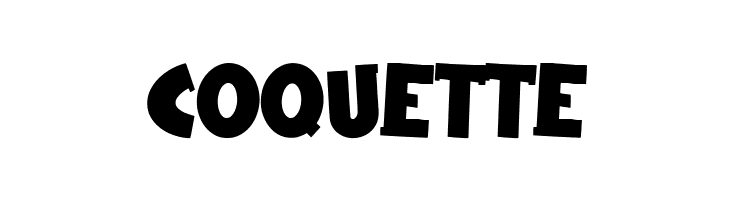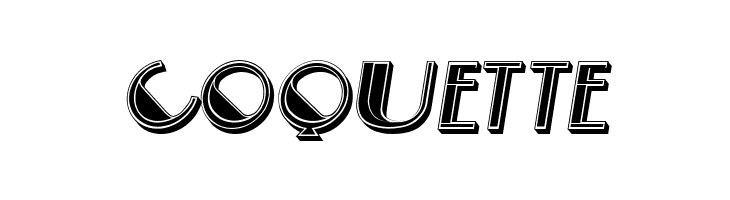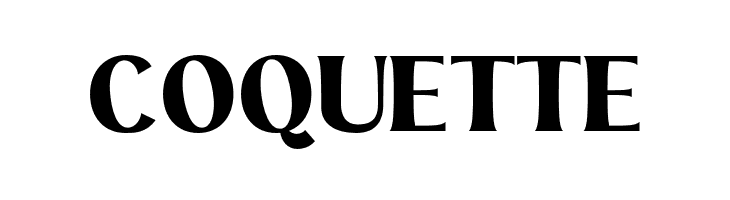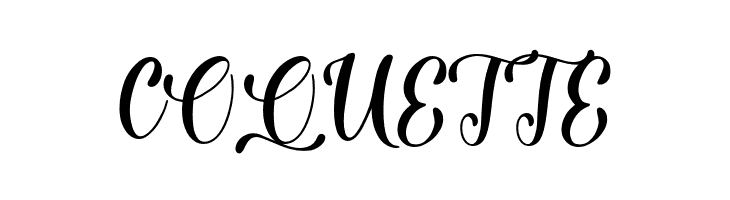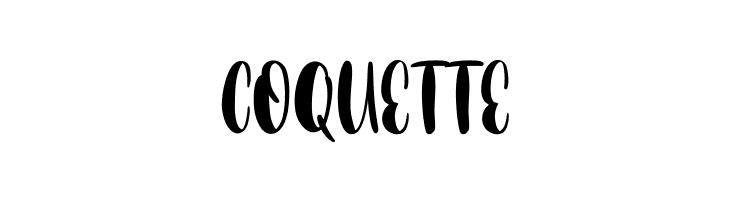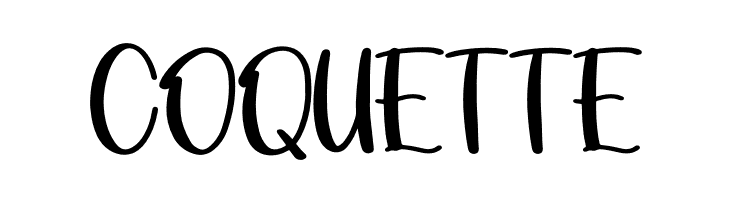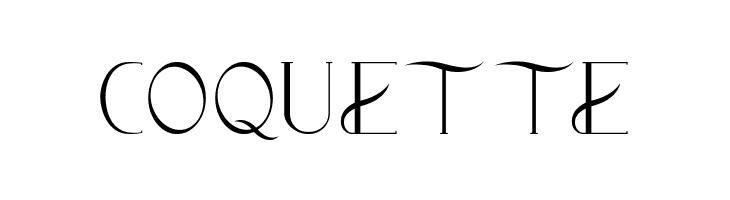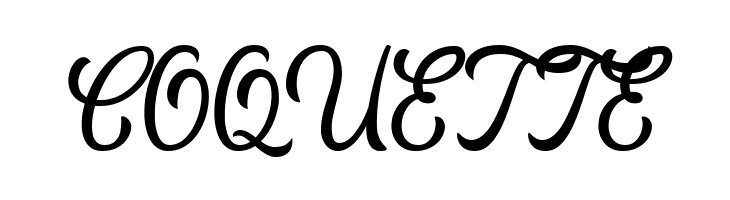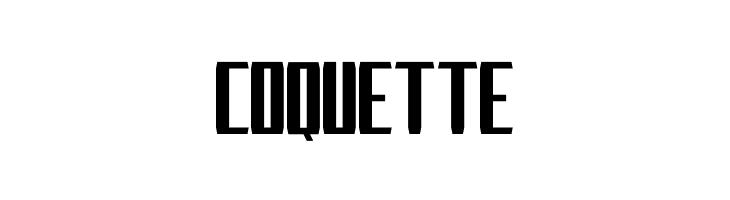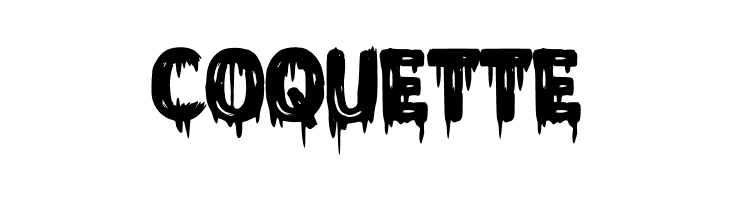
A bold, geometric font with a hollow, dotted interior and a 3D effect.
A playful, handwritten font with bold, rounded letters and a casual style.
A bold, impactful font with uniform strokes and clear readability.
A bold, graffiti-inspired font with sharp angles and dynamic curves.
A bold serif font with strong, slightly condensed letterforms and prominent serifs.
A bold, blocky font with a modern and strong appearance.
A bold, intricate blackletter-style font with high contrast and decorative elements.
A bold, playful font with rounded, hand-drawn characters.
A playful, bold script font with lively curves and smooth connections.
A bold, three-dimensional decorative font with geometric shapes and shadowing.
A bold, geometric font with a three-dimensional effect and modern style.
Bold, modern script font with a handwritten, playful style.
A graceful and elegant script font with flowing cursive strokes.
A bold, dripping font perfect for horror-themed designs.
A bold, geometric font with sharp angles and a vintage flair.
A playful, bold font with thick, rounded characters and a whimsical style.
A modern, high-contrast font with elegant and artistic character designs.
A bold, playful font with rounded, hand-drawn characters.
A bold, playful font with a hand-drawn, energetic style.
A playful, hand-drawn style font with tall, narrow letters.
Elegant, tall handwritten script with a casual, modern feel.
A bold, flowing script font with a handwritten appearance.
A flowing, cursive font with elegant, connected characters and subtle flourishes.
A bold, expressive handwritten font with high contrast and playful curves.
A bold, dynamic font with a halftone pattern and playful, three-dimensional style.
Elegant cursive script with modern flair.
A modern, geometric sans-serif font with a clean and balanced design.
A bold, geometric font with a 3D effect and strong contrast.
Bold, italicized font with a 3D shadow effect and geometric design.
A bold, geometric font with Art Deco influences and shadow effects.
A modern, flowing script font with elegant, interconnected letters.
A playful, cursive-inspired font with elegant curves and dynamic strokes.
A bold, flowing script font with elegant cursive letterforms.